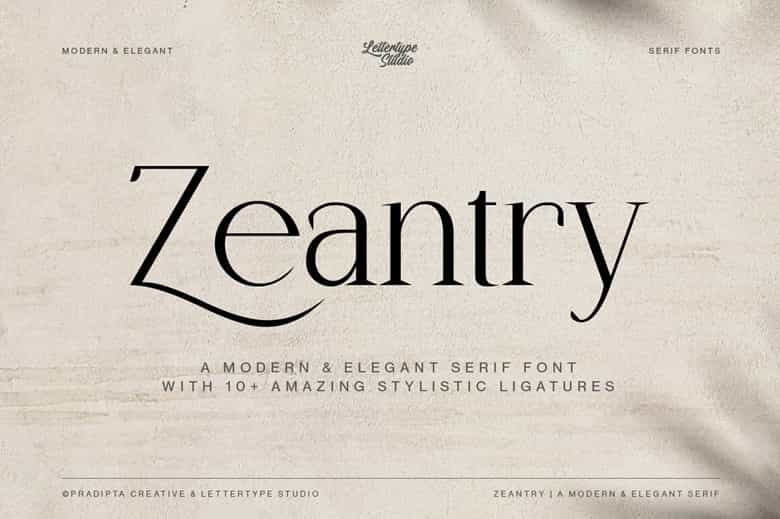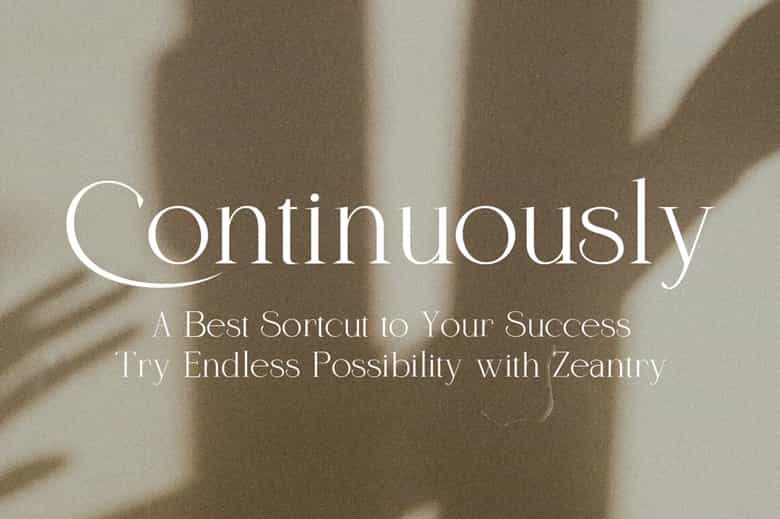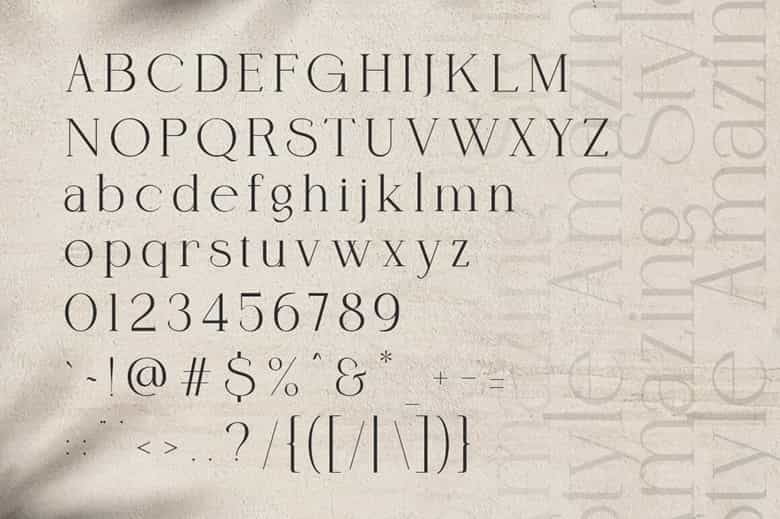
Zeantry is a beautiful clean and elegant serif font with classical appearance influenced by the typography of the 18th century.. Ideal for elegant branding, magazine design, web typography and many other purposes. With these fonts, you will be able to create projects that will never go out of style with their simple and clean design, geometric and luxurious embellishments. A perfect solution for designers who consider typography as one of the key elements of their projects.